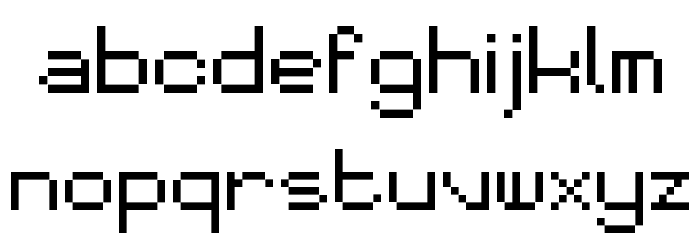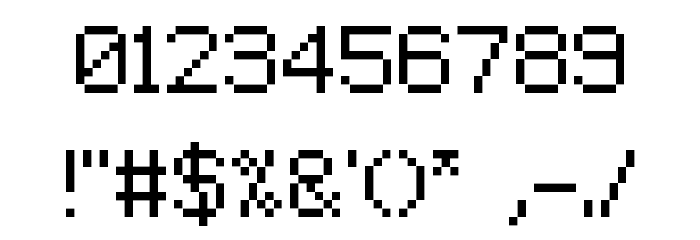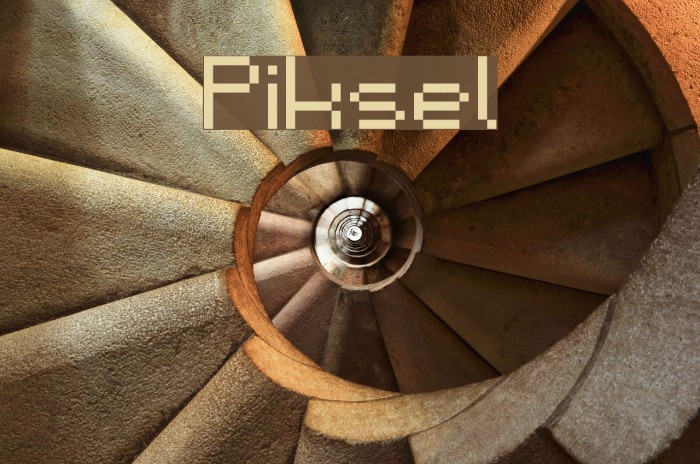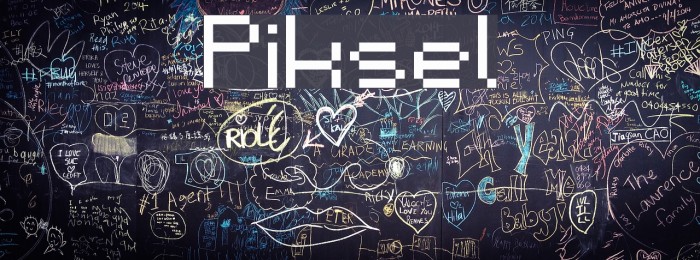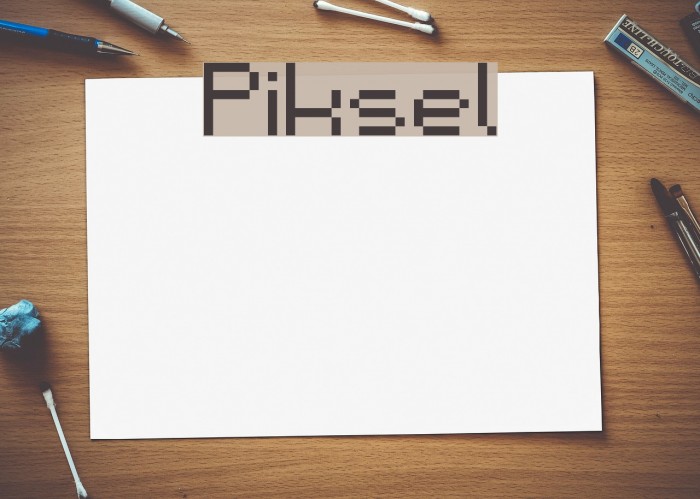
Piksel Font
This font features a pixelated, blocky design reminiscent of early digital displays and video games. Each character is constructed with a grid-like precision, giving it a distinctly retro and digital aesthetic. The uppercase and lowercase letters maintain a uniform height, contributing to a consistent and cohesive appearance. Numbers and special characters follow the same pixelated style, ensuring a harmonious look across all glyphs. The font's simplicity and geometric form make it highly legible, even at smaller sizes, while its nostalgic charm evokes a sense of vintage computing and arcade games. This style is particularly effective for projects that aim to capture the essence of the 8-bit era or convey a tech-savvy, modern-retro vibe.
A pixelated, retro-style font inspired by early digital displays.
- Proposed Projects: Ideal for video game design, tech-themed posters, retro branding, and digital art projects.
- Overall Style: Vintage